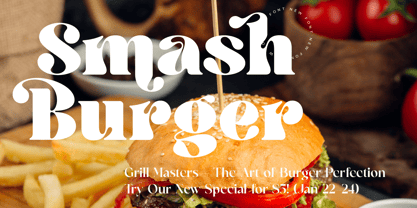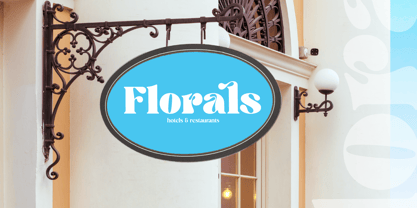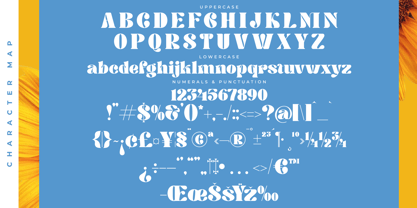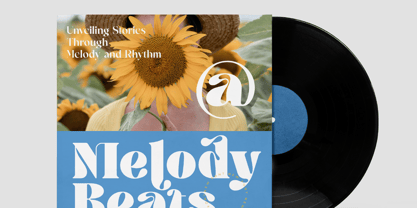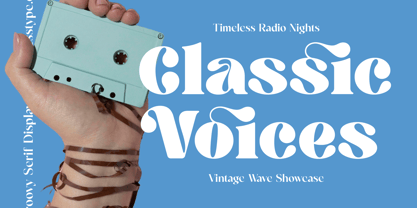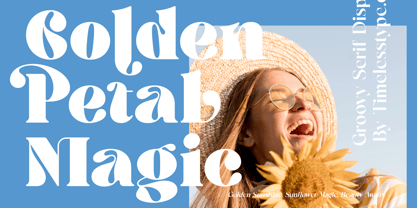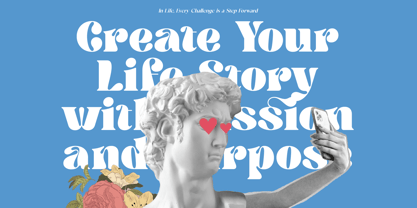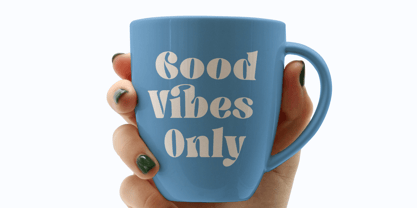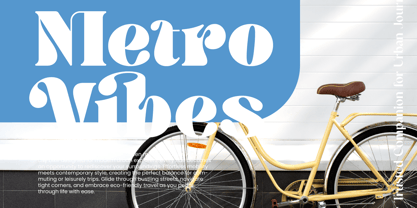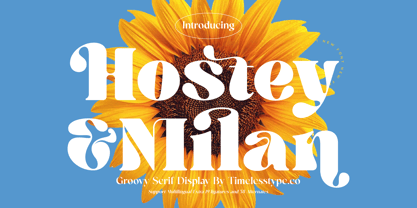
Hostey & Milan
by Timelesstype Studio
The Hostey & Milan Font Family was designed by Heru Utama Putra and published by Timelesstype Studio. Hostey & Milan contains 2 styles and family package options.
Hostey & Milan - Groovy Serif Display , from Timelesstype, Suitable for any projects such as: logos, branding projects, homeware designs, product packaging, mugs, quotes, posters, shopping bags, t-shirts, book covers, name card, invitation cards, greeting cards, label, photography, watermark, special events, and all your other luxury and beautiful projects that need a Luxury Serif taste.